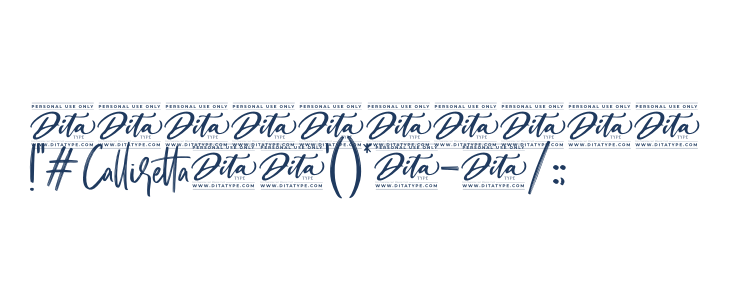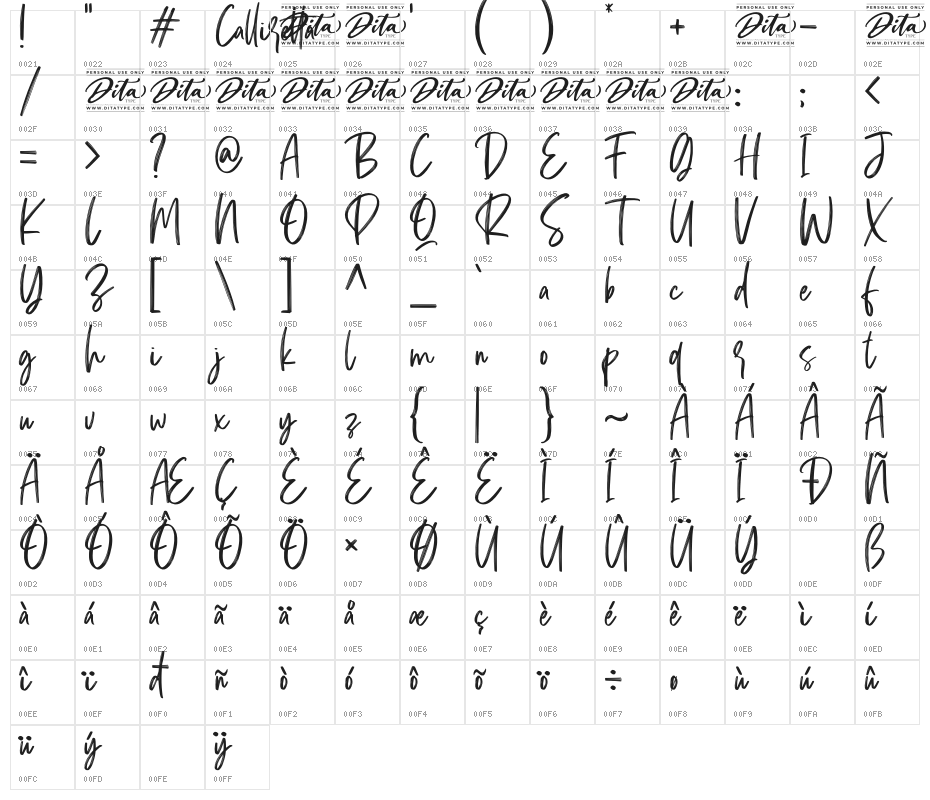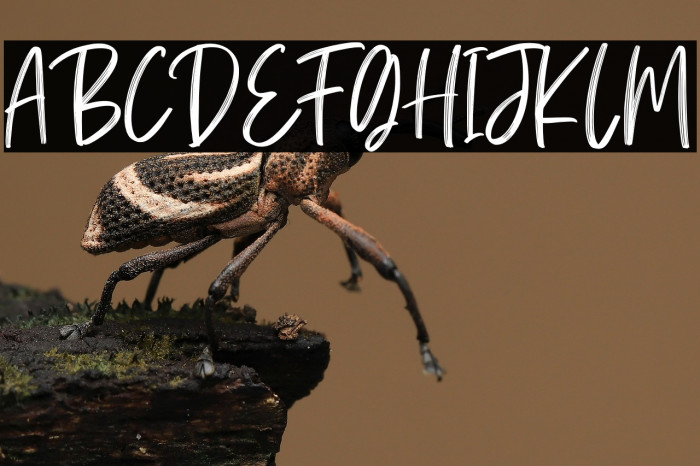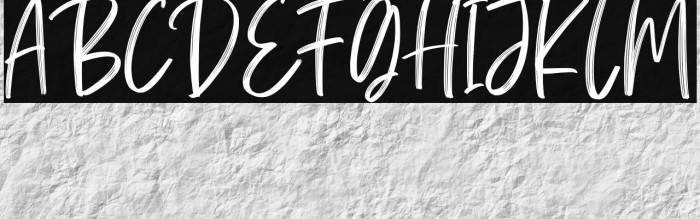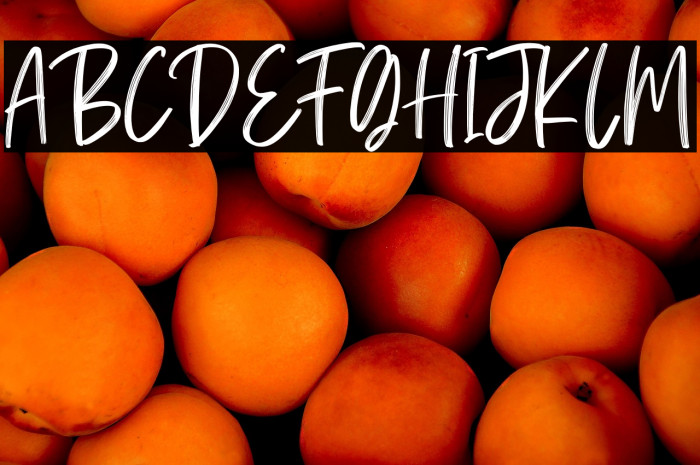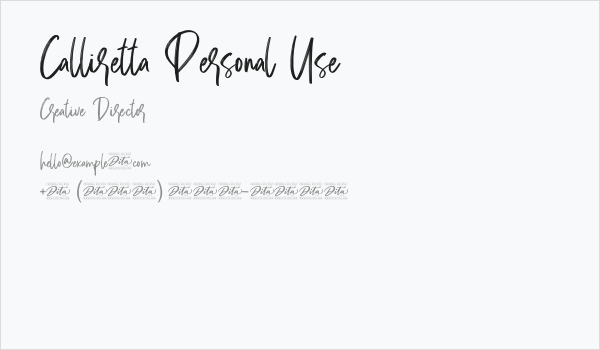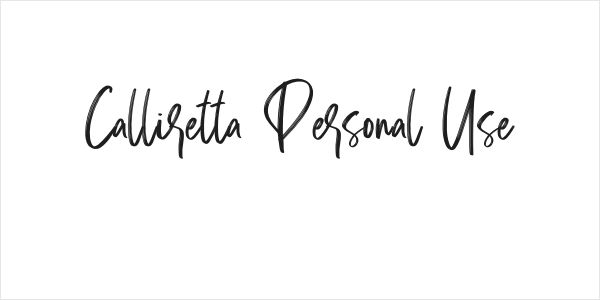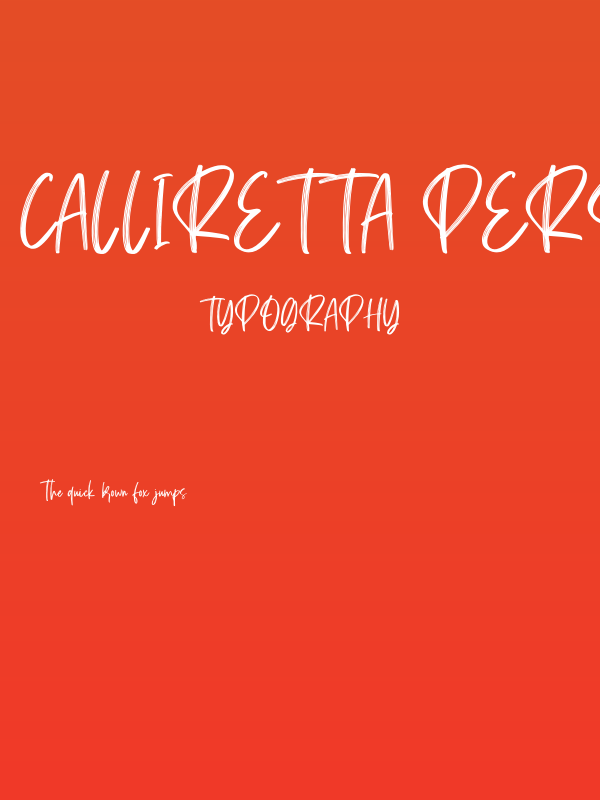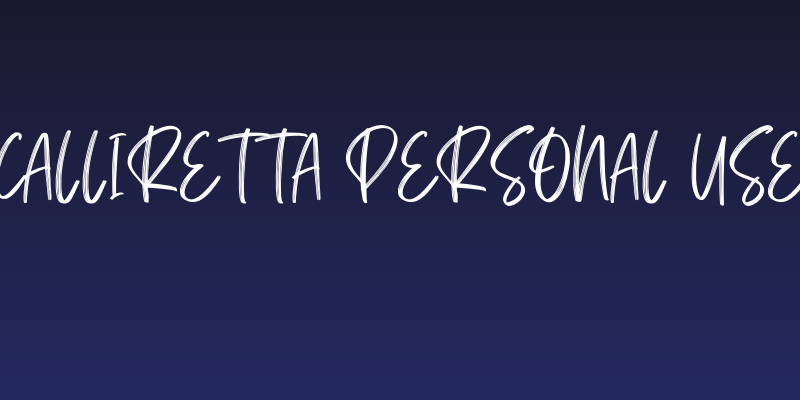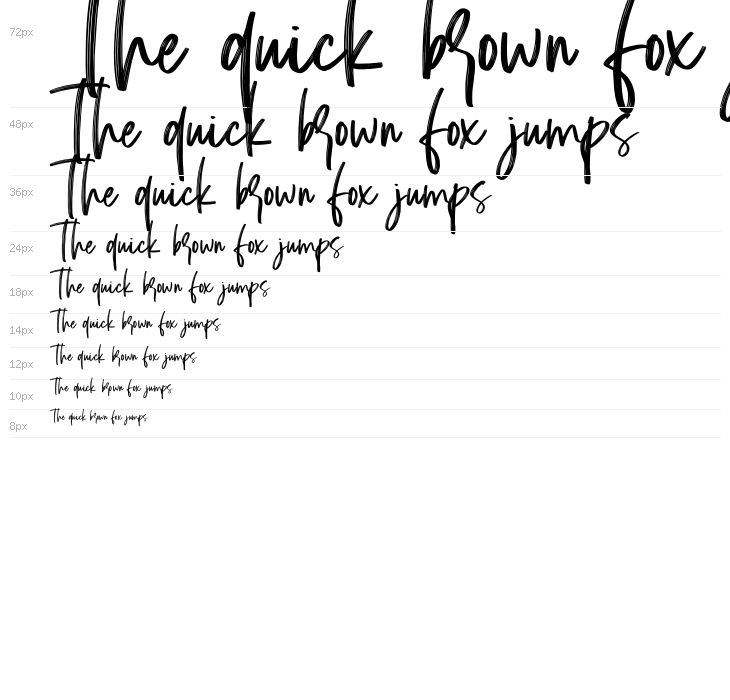
Calliretta Personal Use Font
Calliretta Personal Use Description
This font features a dynamic and expressive handwritten style, characterized by its fluid strokes and playful curves. The letters exhibit a natural flow, with varying stroke widths that add a sense of movement and energy. The uppercase and lowercase letters maintain a consistent style, with some letters extending slightly above or below the baseline, enhancing its casual and artistic feel. The numbers and special characters are designed to match the overall aesthetic, ensuring a cohesive look across all text. This font is perfect for projects that require a personal touch, such as invitations, greeting cards, or creative branding.